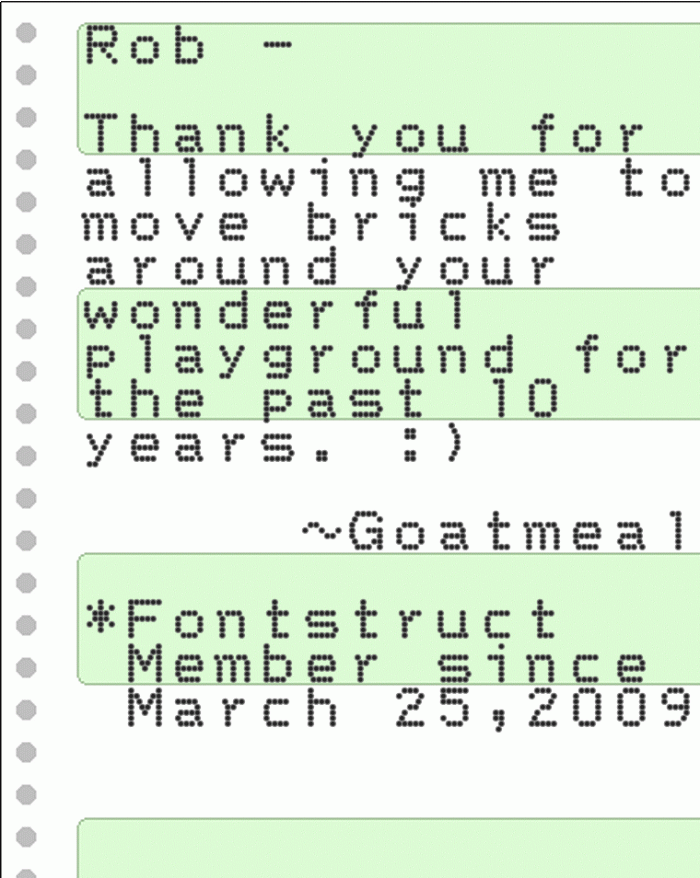
• Bring back some dot matrix-y goodness to your printed documents with DMP-200 RS! Based on the output of the Radio Shack DMP-200 printer, DMP-200 RS is a sans-serif fixed-width Dot Matrix Printer typeface from the early 1980s. The DMP-200 was used with the TRS-80 Color Computer and other fine Tandy computers. A few non-alphanumeric characters have been created to match the original style.